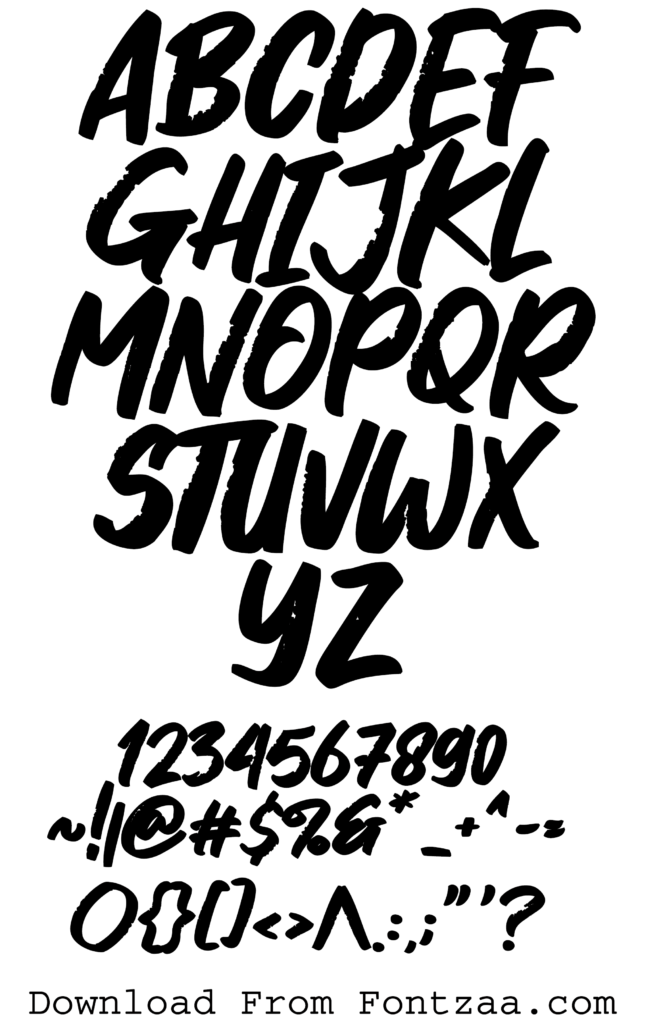
The Dosen Killer Font is very full of energy and robustly rebellious; it stands up very well when used for literally any design project. From street art to underground culture, this typeface is rough and rambunctious, creating a raw urban attitude. This would work well with street culture, punk rock, and unfiltered creativity.
One of the most striking things about Dosen Killer Font is the battered and tattered appearance, further ensuring the graffiti effect of this hand-drawn style. In designs that have to be accurate and power-laden, each of the letters is painstakingly done in such a way that it is on the run; it is chaotic—precision in the spontaneity and the ragged way of street art.
Dosen Killer Font Family
The typeface of the Dosen Killer seems to have a bit rough stiffness but is easily readable and very utilitarian. The clearly defined letter forms give legibility at different sizes, which brings effectiveness in communication about various hormones on other platforms. Dosen Killer is impactful and memorable, whether for headlines, body type, or ornamental elements.
Besides its charming design, it is very practical and easy to use: it works with most design software and supports most characters and symbols, so this font can fit into very different and diverse projects for a wide audience. It could be dirty album covers, edgy event posters, grunge promotional packages, or any rough designs—Dosen Killer Font is there to embody the rebellious spirit of the streets.